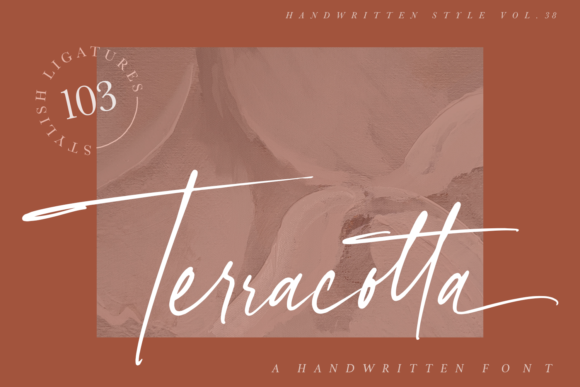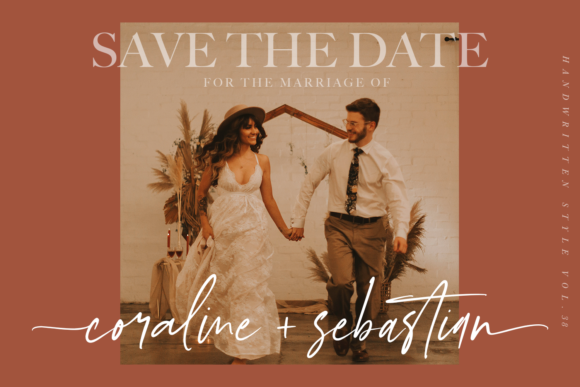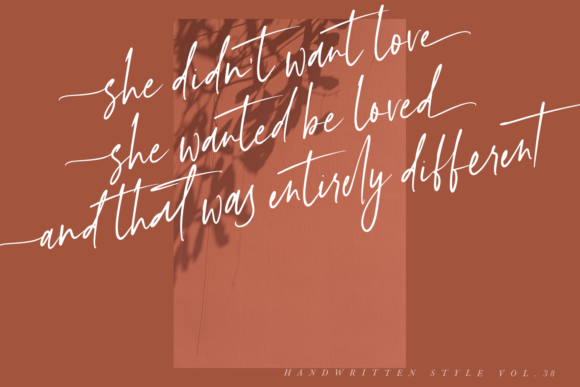
About Terracotta Font
Terracotta is a stunning and versatile handwritten font that effortlessly adds a touch of style and elegance to any design. With its flowing and graceful strokes, Terracotta creates a sense of sophistication that is perfect for a wide range of projects.
For branding and product packaging, Terracotta brings a sense of authenticity and personality, making your products or services stand out from the competition. Its stylish appearance will leave a lasting impression on customers, creating a strong brand identity.
In invitations and greeting cards, Terracotta’s flowing letters add a touch of warmth and charm, setting the right tone for weddings, parties, or special events. The font’s versatility makes it suitable for both formal and informal occasions, making it a go-to choice for any type of celebration.
Terracotta’s elegance and smooth flow make it an ideal font for quotes and social media posts. Whether used as standalone text or combined with beautiful illustrations, the font adds a visually appealing element to your content, attracting and engaging your audience.
On websites and blogs, Terracotta’s stylish appearance complements a modern and clean design, making it easy to read and visually pleasing. It can be used for headings, titles, or body text, enhancing the overall user experience.
For logo design, Terracotta offers a unique and artistic touch, making your brand memorable and distinctive. Its versatility allows it to adapt to various industries and styles, making it a perfect choice for businesses of all kinds.
In summary, Terracotta is a stylish and flowing handwritten font that brings a touch of elegance and sophistication to any design project. Its balanced and varied strokes make it suitable for a wide range of applications, from branding and invitations to quotes, social media, and more. With Terracotta, your creations will undoubtedly stand out and leave a lasting impression.